Constituent of Kanji and Creation Points 01: “Radical”
Kanji can be grouped by radical. Radicals are a part of kanji. For example, “焼, 炊, and 炒” are all kanji with a common radical. This radical is “火” when it is written alone. As the part on the left of kanji is “hen,” it is called “hi-hen (火偏).” When a kanji is hi-hen, it often means something related to fire. We become very familiar with radicals when learning or using kanji. As we can look up an unreadable kanji by radical, kanji culture is supported by radicals in a variety of situations.
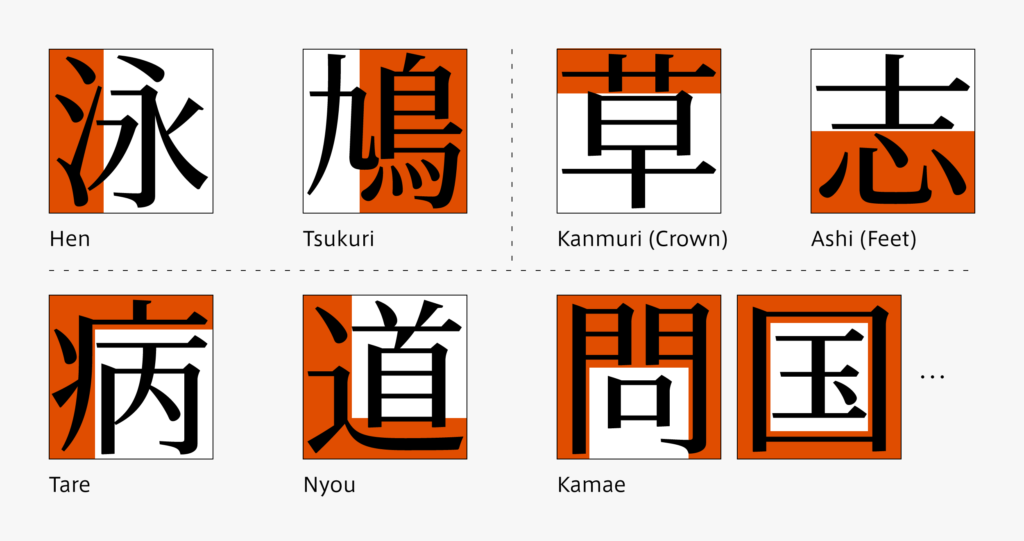
In the next entry, I would like to introduce the points to take note of when creating from the perspective of a designer by roughly categorizing radicals into a vertical division system, horizontal division system, and enclosed system.